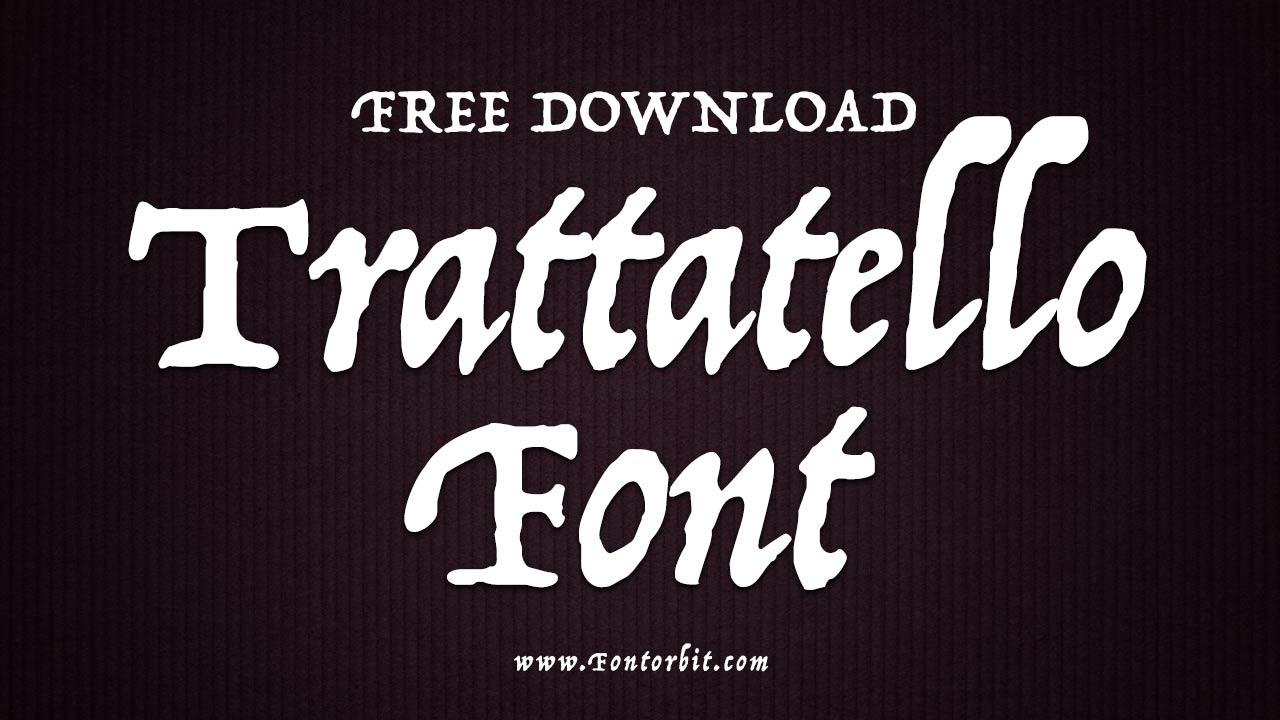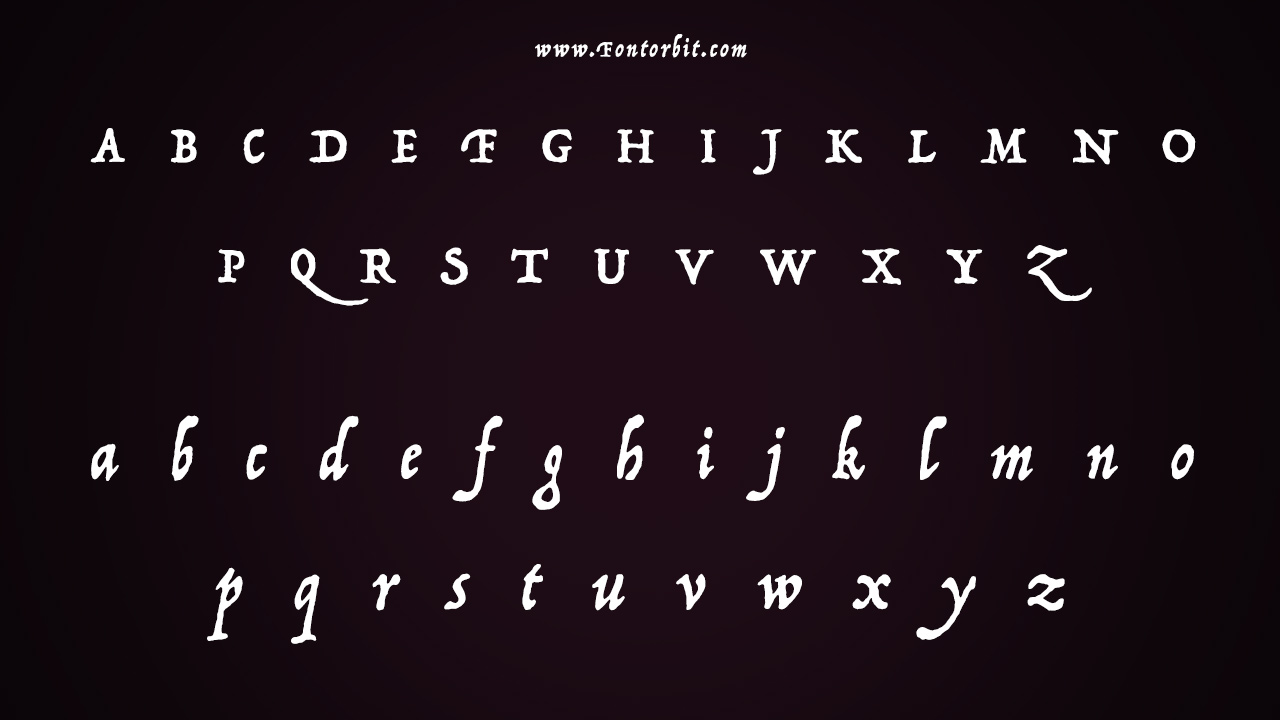
The Trattatello Font is a distinctive typeface known for its textured and ambitious design. Created by James Grieshaber, this font stands out for its rustic yet refined look.
Types In The Trattatello Font Family
Trattatello Regular
The Trattatello Font comes in a standard Regular style that embodies its textured, handwritten-like design. It captures the essence of craftsmanship, giving designs a classic and unique touch.
Perfect for formal invitations, headlines, and emblems. This typeface adds personality to your projects while maintaining a sophisticated aesthetic.
The Trattatello Font is ideal for designs that require a textured and handmade appearance, combining elegance with a rustic charm. Here are some occasions where this font can be effectively used:
- Menus
- Websites
- Banner and retargeting ads
- Retail store interiors
- Signage and trade show displays
- Advertisements
- Infographics
- Museum exhibitions
- Promotional videos
1.How To Identify Trattatello Font From Similar Fonts?
Trattatello Font is distinguished by its textured, rustic design with handcrafted letterforms. Its balance of elegance and roughness sets it apart from other serif and sans-serif fonts.
2.What Is A Textured Font Style?
Textured fonts have a rough, handcrafted appearance that mimics traditional letterpress or hand-drawn styles. These fonts often have uneven strokes, adding to their artistic and unique feel.
3.What Are The Trattatello Font History And Origins?
The Trattatello Font, created by James Grieshaber, is designed to blend elegance and texture. Its textured look makes it suitable for projects that require a handcrafted or vintage feel.
4.How To Create Trattatello Font In Illustrator?
To create you can use brush effects and texture overlays to mimic the font’s handcrafted style. Start with basic serif shapes and apply custom textures to create a unique look.